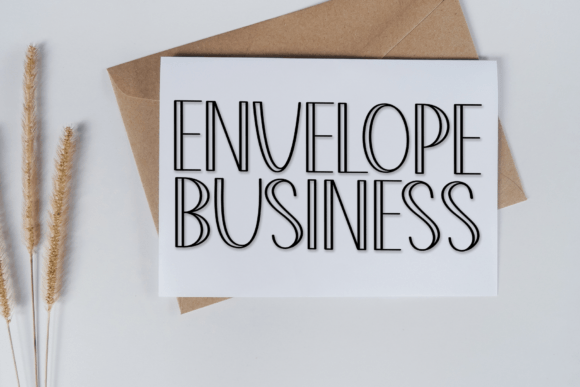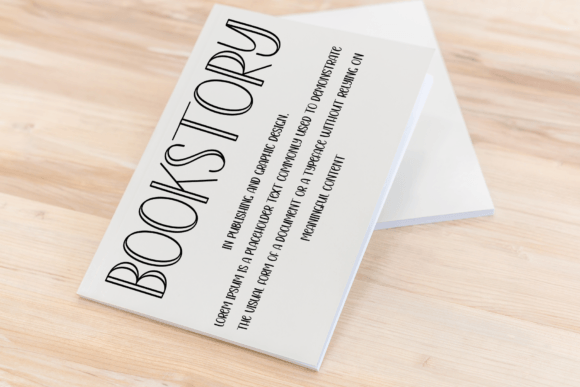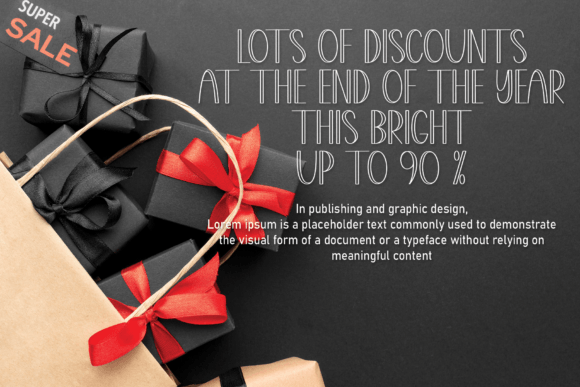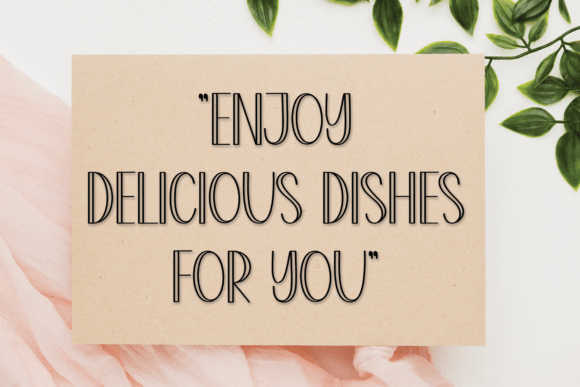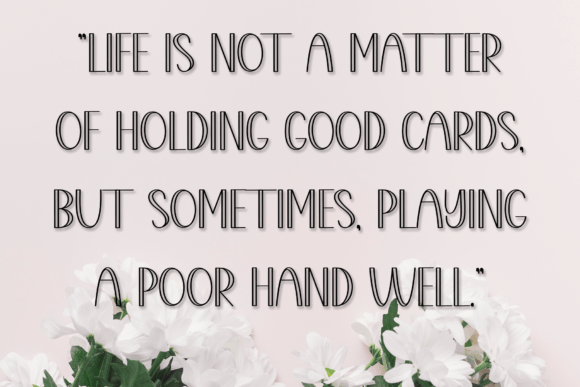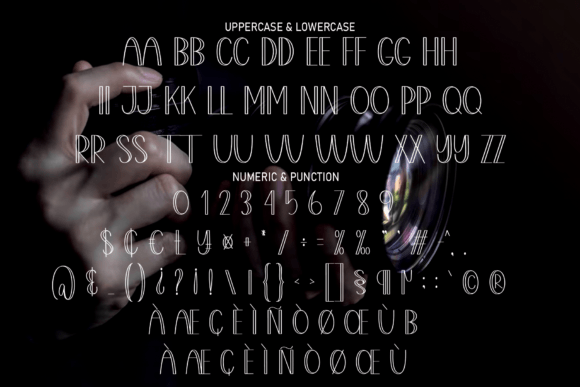
Introducing Camera Font: The Friendly and Versatile Display Font for Designers and Crafters
In the world of typography, fonts play a crucial role in conveying the tone and personality of a design. When it comes to creating visually appealing and engaging content, the right font can make all the difference. If you’re a designer, crafter, or simply someone who loves to dabble in digital design, you’re in luck! Today, we’re excited to introduce Camera Font, a childish, easy-to-read display font that’s sure to become your new favorite go-to font for all your design needs.
What is Camera Font?
Camera Font is a delightful display font that’s designed to convey impeccable friendliness. Its playful and approachable style makes it perfect for a wide range of applications, from crafts and digital design to presentations and greeting cards. Whether you’re creating something for personal use or for a client, Camera Font is sure to bring a smile to your face and a touch of whimsy to your design.
Key Features of Camera Font
- Childish and playful style: Camera Font has a fun and youthful vibe that’s perfect for designs that require a touch of playfulness.
- Easy-to-read: Despite its playful style, Camera Font is incredibly legible, making it perfect for use in a variety of contexts.
- Display font: Camera Font is designed to make a statement, making it perfect for headings, titles, and other display text.
- Versatile: Camera Font can be used for a wide range of applications, from digital design to crafting and more.
Use Cases for Camera Font
So, what can you use Camera Font for? The possibilities are endless! Here are a few ideas to get you started:
- Crafts: Camera Font is perfect for crafters who love to create handmade cards, gift tags, and other paper crafts.
- Digital design: Use Camera Font in your digital designs, such as social media graphics, blog posts, and more.
- Presentations: Add a touch of personality to your presentations with Camera Font.
- Greeting cards: Create custom greeting cards for special occasions, such as birthdays, holidays, and more.
Why You’ll Love Camera Font
So, what sets Camera Font apart from other fonts? Here are a few reasons why you’ll love this versatile display font:
- Friendliness: Camera Font conveys a sense of friendliness and approachability that’s hard to find in other fonts.
- Easy to use: Camera Font is incredibly easy to use, even for those who are new to design.
- Highly legible: Despite its playful style, Camera Font is incredibly legible, making it perfect for use in a variety of contexts.
In conclusion, Camera Font is a versatile and friendly display font that’s perfect for designers, crafters, and anyone who loves to dabble in digital design. Its playful style, ease of use, and high legibility make it an excellent choice for a wide range of applications. Whether you’re creating something for personal use or for a client, Camera Font is sure to become your new go-to font. So why wait? Give Camera Font a try today and see the difference it can make in your designs!
With its impeccable friendliness and versatility, Camera Font is sure to bring a touch of whimsy and playfulness to your designs. So go ahead, get creative, and have fun with Camera Font!